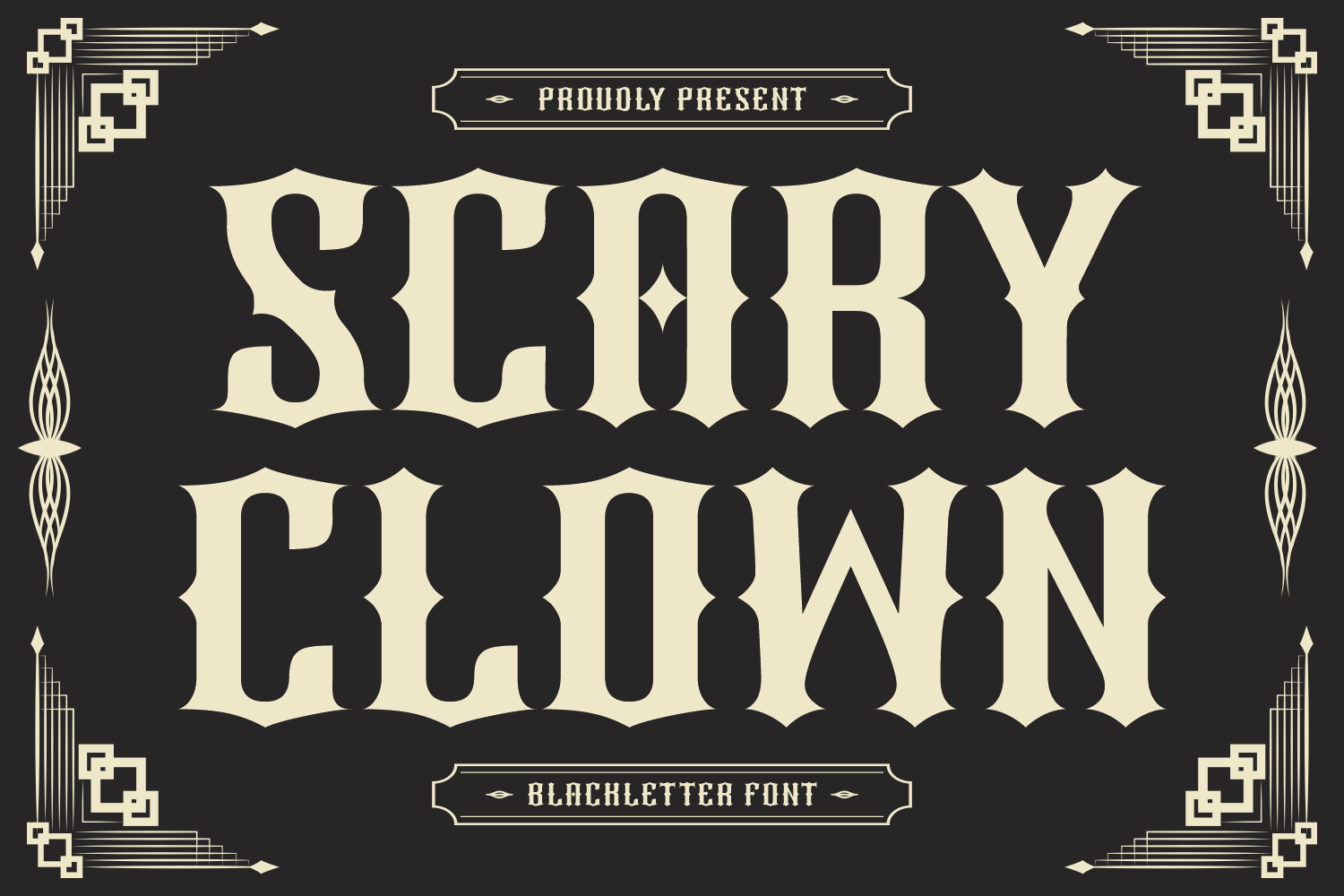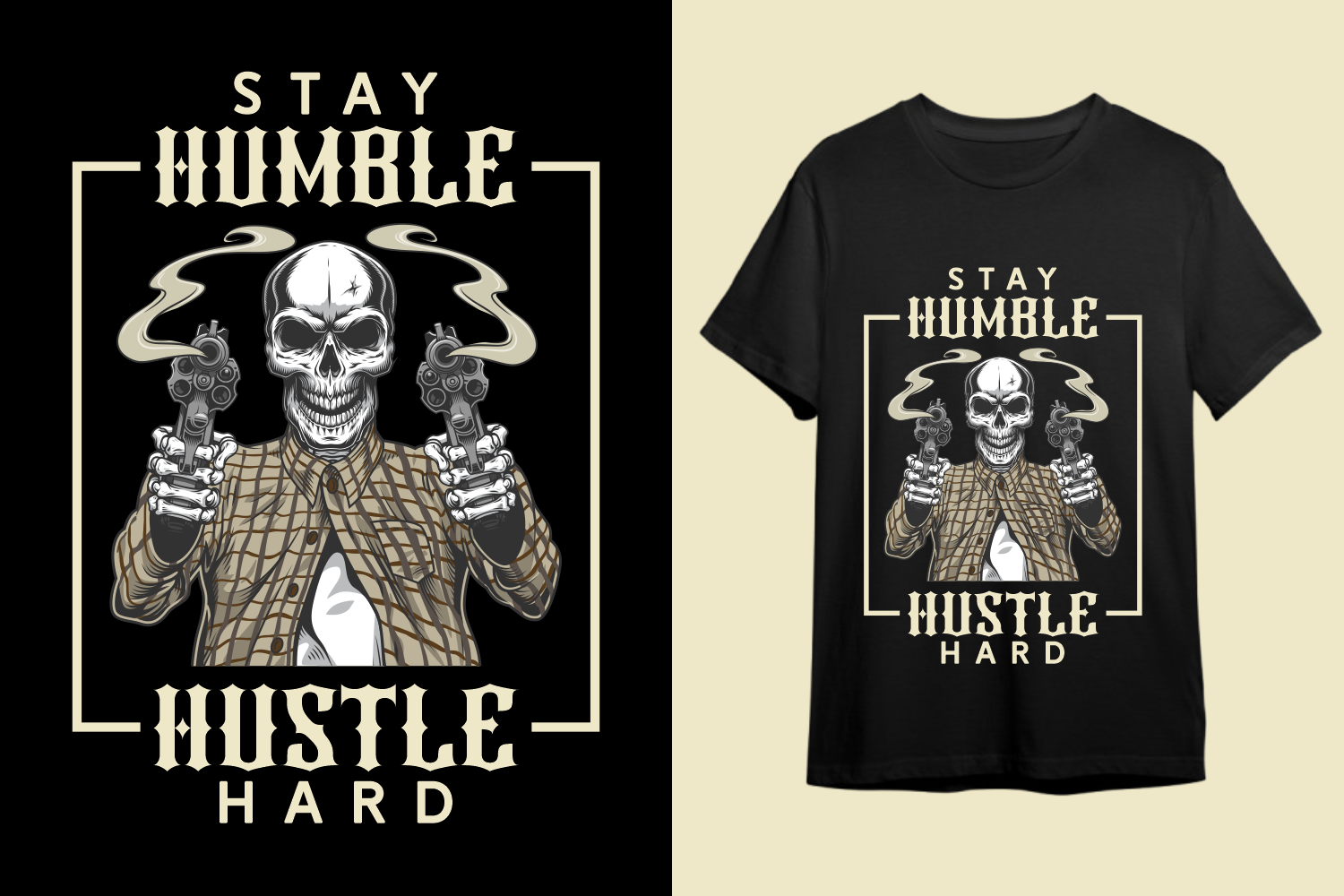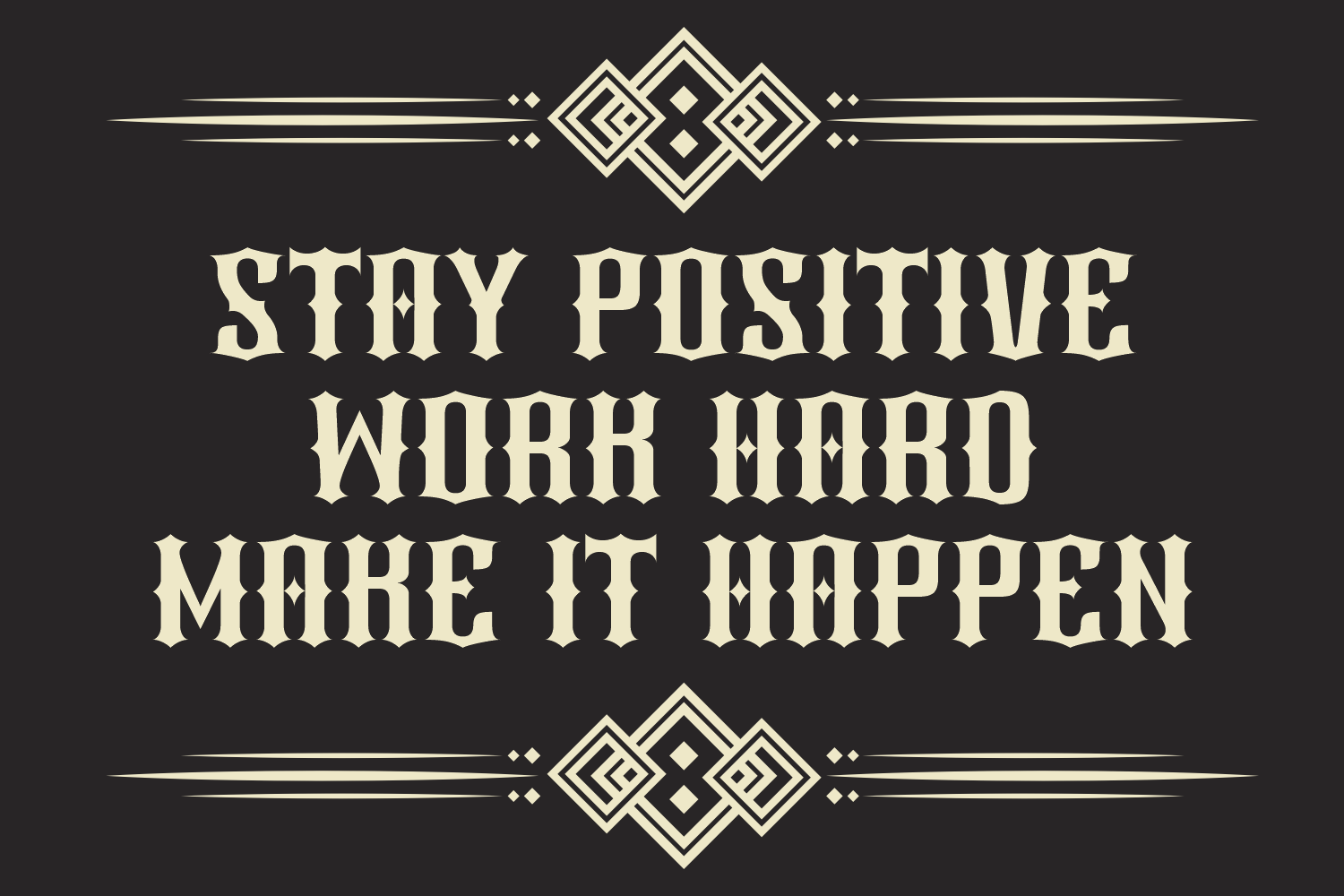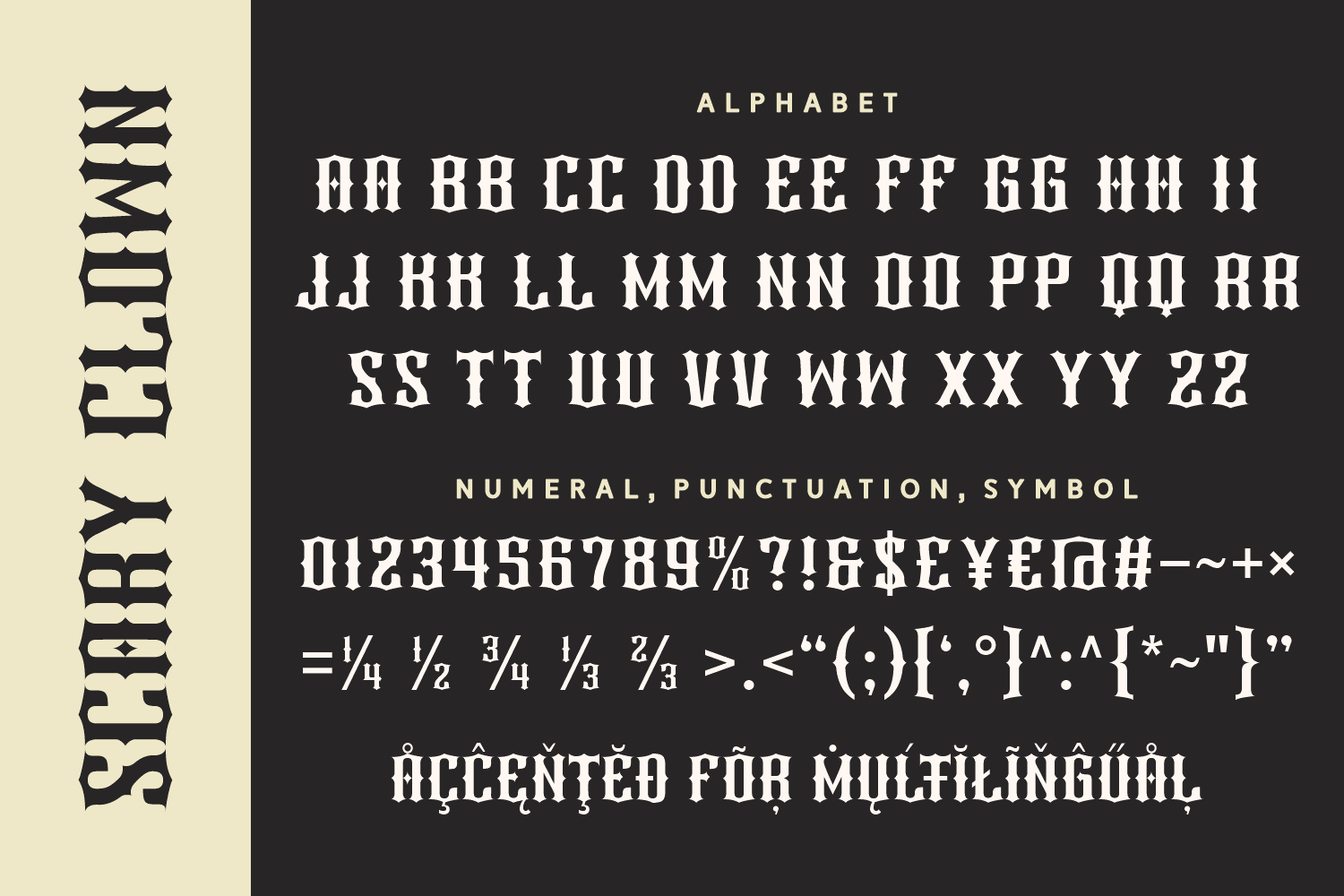
Scary Clown is a bold blackletter font infused with a playful but eerie vibe, perfect for horror designs, Halloween events, or quirky branding projects. Its spooky curves and vintage circus-inspired style strike a perfect balance between creepy and fun.
Ideal for posters, logos, or themed packaging, this font will instantly set the mood. It’s theatrical, unsettling, and undeniably unforgettable.